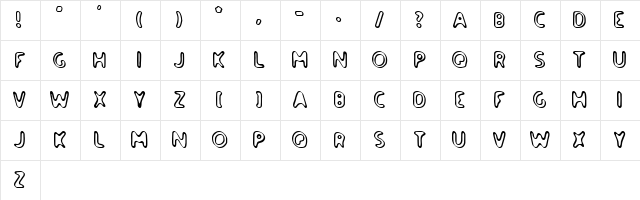
Paradise Road Outline
| Style | Outline |
| Foundry | Fr餩ric Rich |
| Designer | Fr餩ric Rich |
Design Context for Paradise Road Typeface
Paradise Road brings ornamental detail and strong personality to headlines and identities, where visual impact matters more than quiet functionality.
Font Pairing: Pair with a clean neutral sans-serif for body copy to let Paradise Road's character lead without overwhelming the composition.
Pro Tip: Use Paradise Road exclusively at display sizes — it was designed to be seen, not read at length. Let a neutral companion handle body copy.